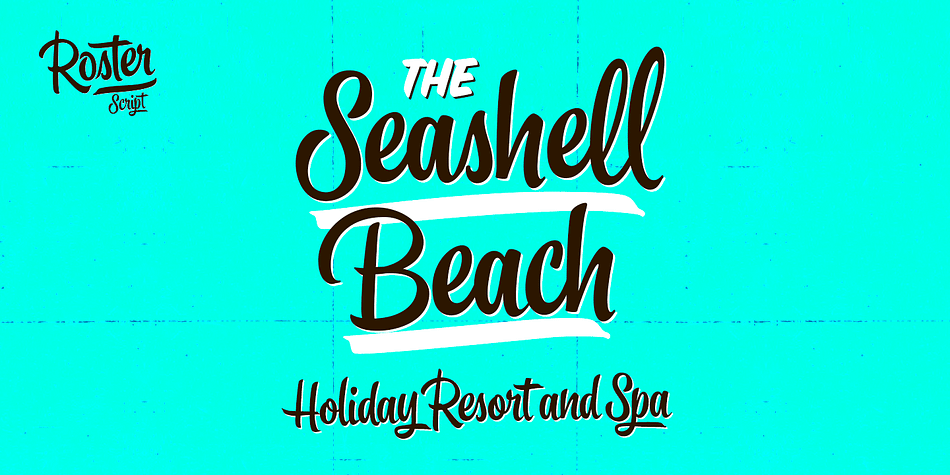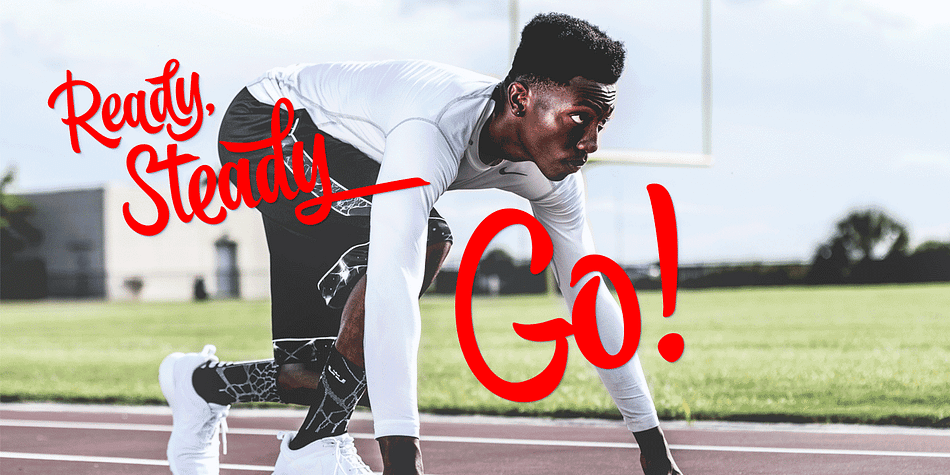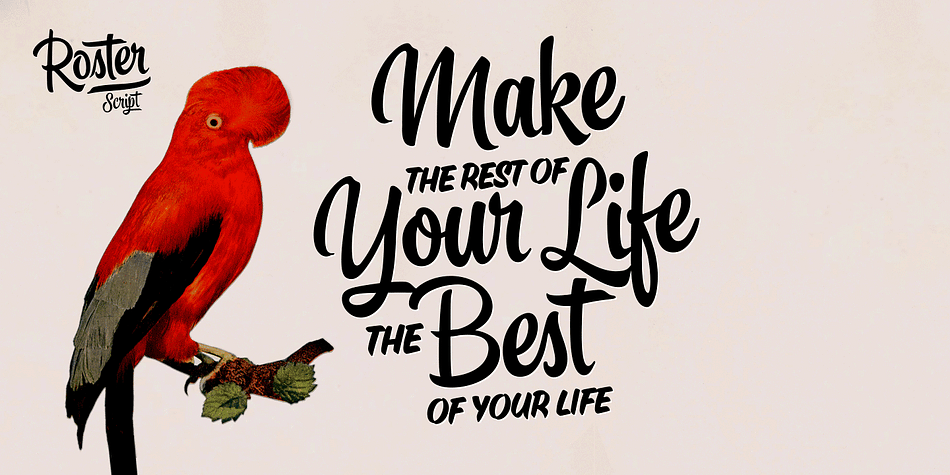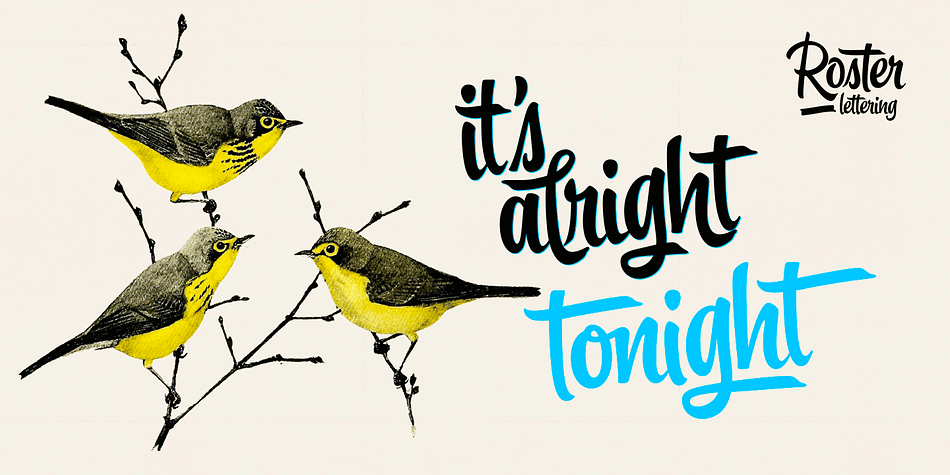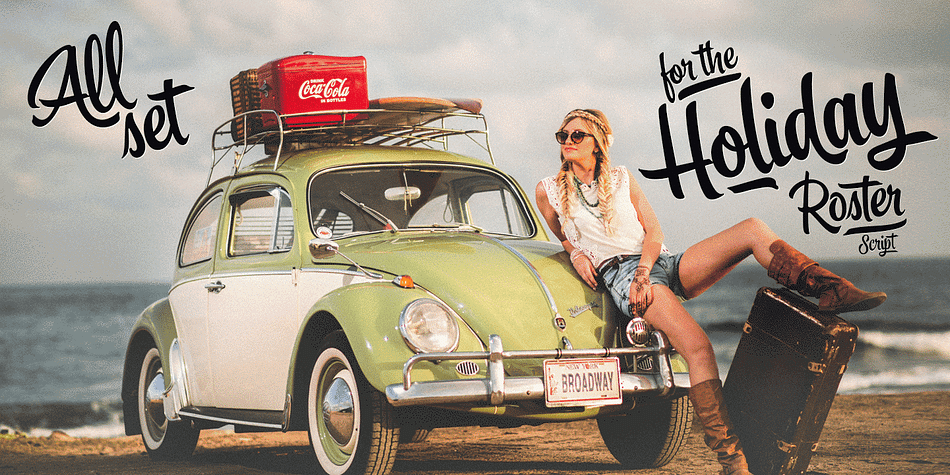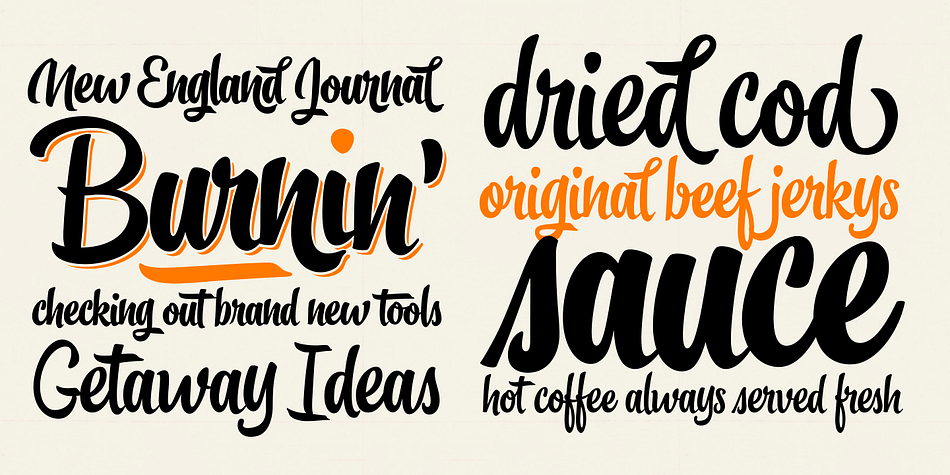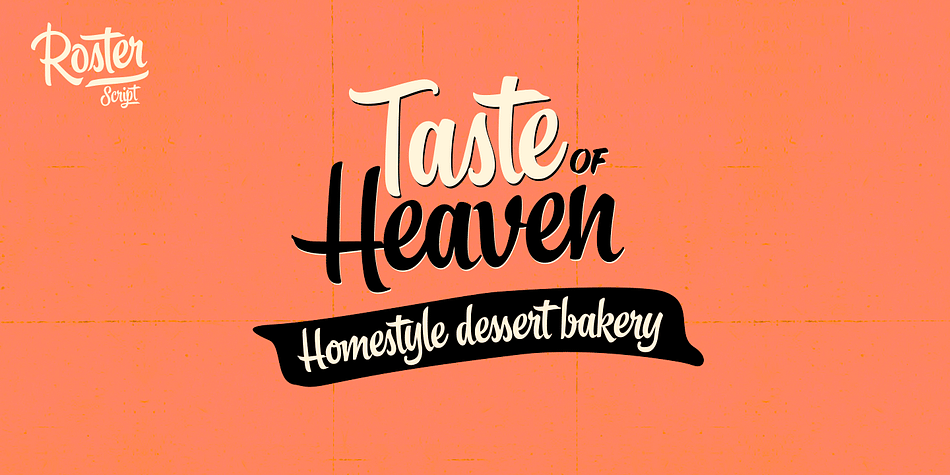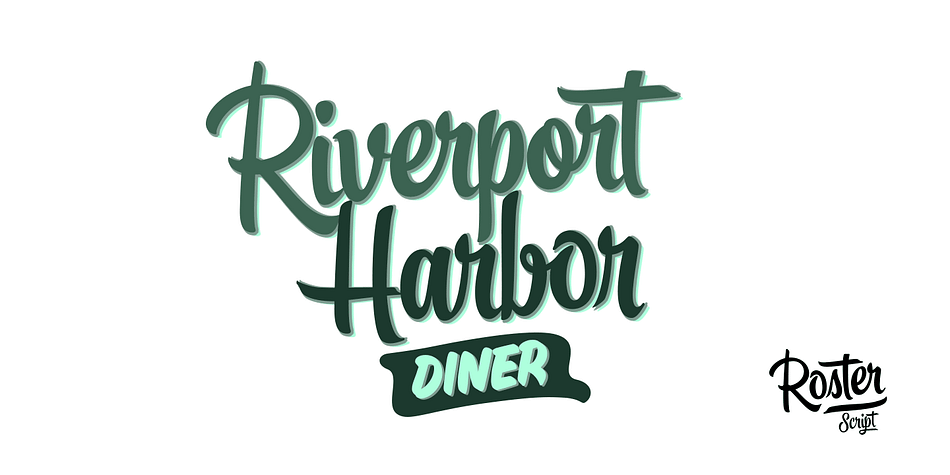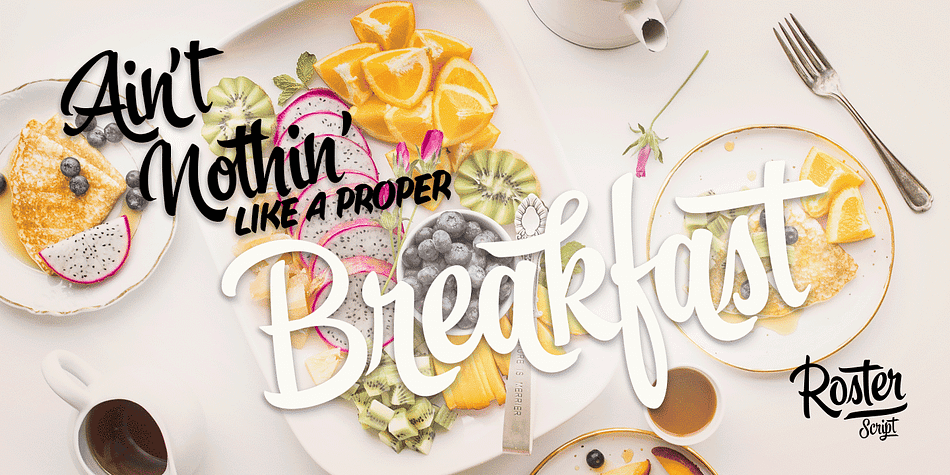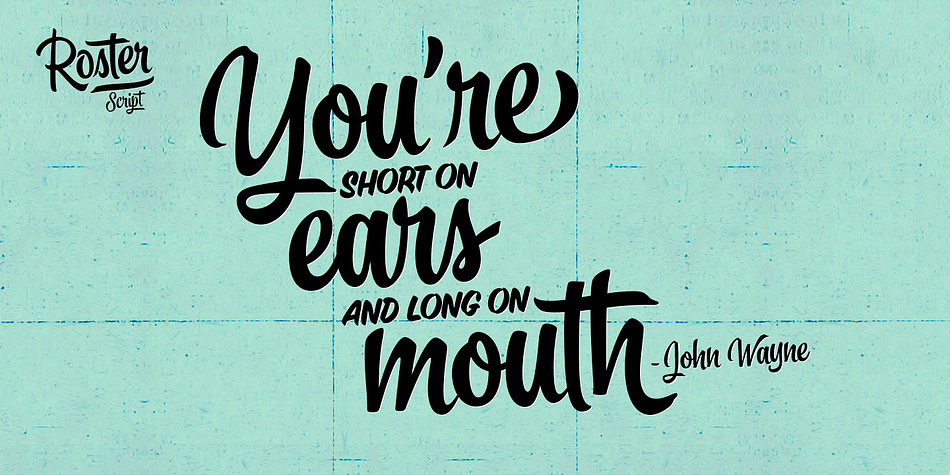
Roster Brush is a brush display, brush script and dingbat font family. This typeface has four styles and was published by Fenotype.
Roster is a strong brush script family of two weights, caps and a set of ornaments. Roster is great for any kind display use from advertising to packaging and from online to branding. Roster is clear and legible even in smaller sizes and works for longer texts too, but is at it’s best when used for shorter sentences or even just for one or two word display or logo use.
Roster is equipped with plenty of Ligatures and Contextual alternates that are automatically activated as long as you keep Standard Ligatures feature on. These features help to maintain the flow and add on some variation when writing with Roster. If you need more than that there is at least three Alternates for each basic character: click on Swash, Stylistic or Titling Alternates in any OpentType savvy program or check out for even more alternates from the Glyph Palette.
Since uppercase letters in Roster are mainly designed as initials I made Roster Caps for an all caps version of the capital letters. Roster Caps can be used on it’s own or to support Roster Script. Roster Ornaments is a set of swashes and brush strokes designed to support the font.